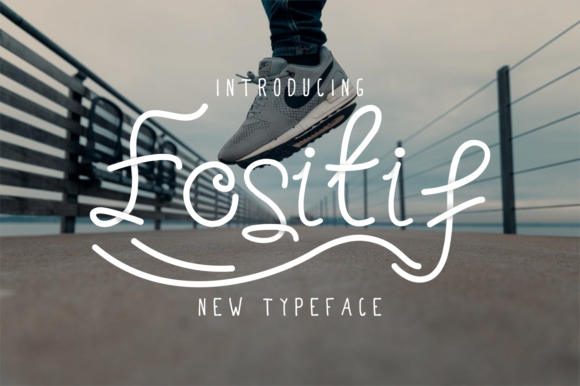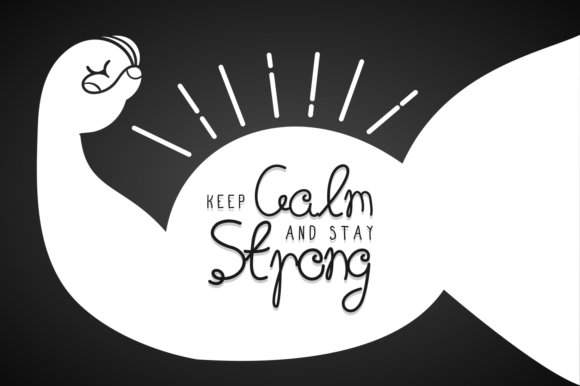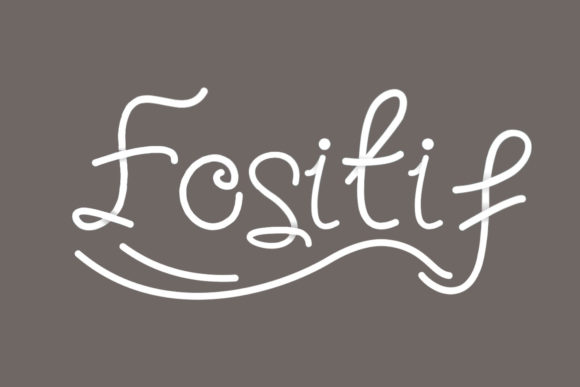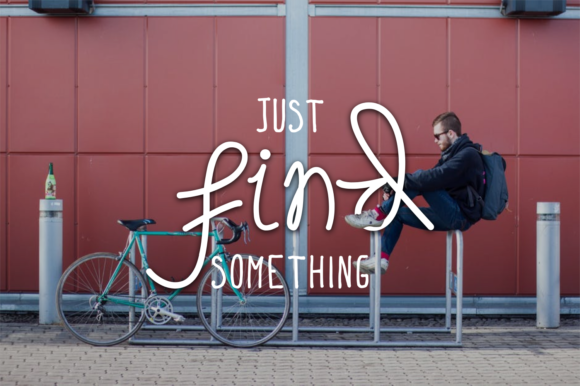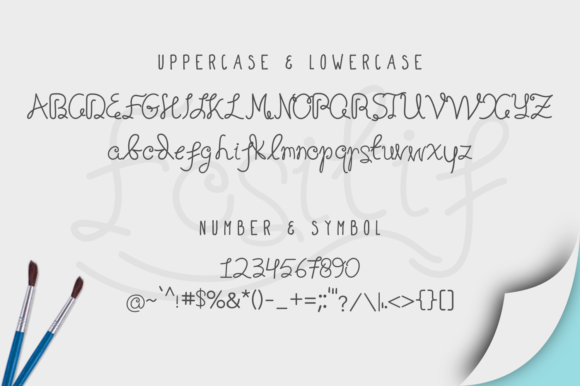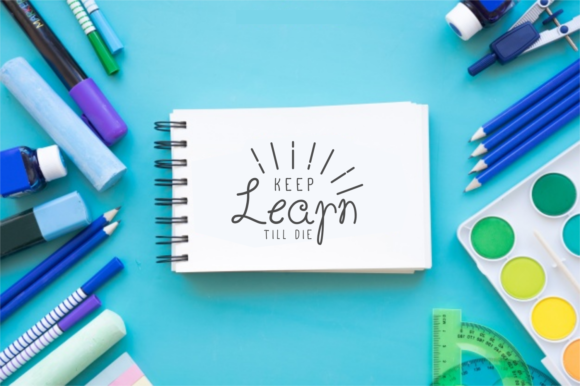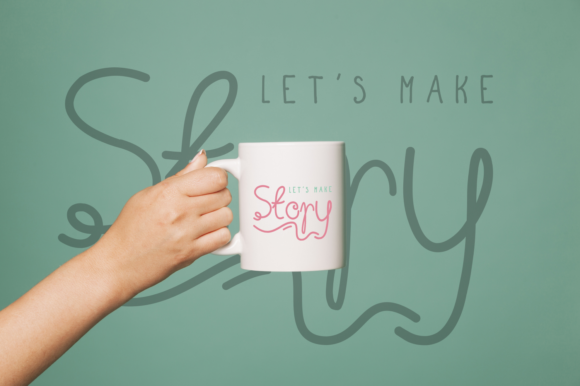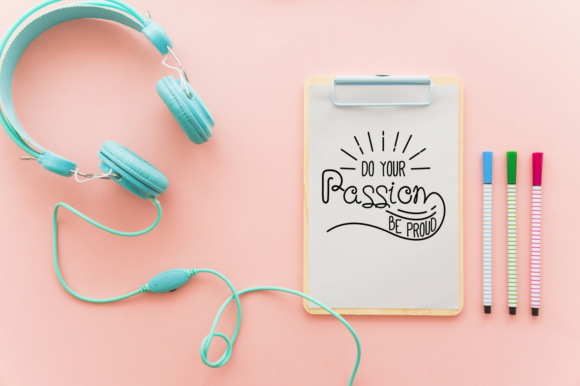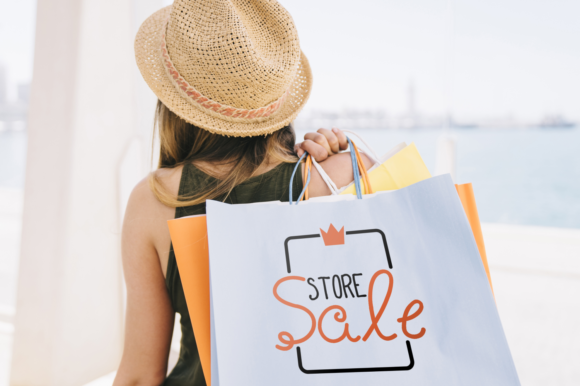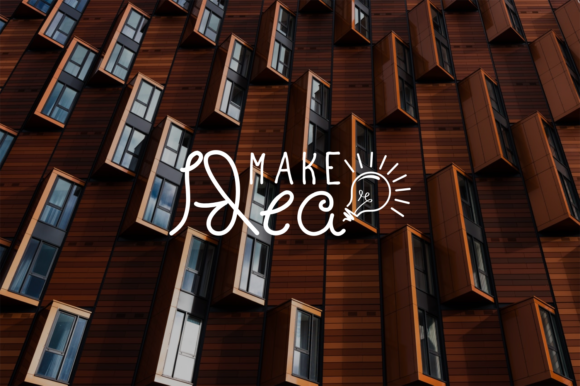
HomeScript FontsFositif Font Script Fonts Fositif Font FacebookXPinterestWhatsApp Fositif Font Poster 2 Fositif Font Poster 3 Fositif Font Poster 4 Fositif Font Poster 5 Fositif Font Poster 6 Fositif Font Poster 7 Fositif Font Poster 8 Fositif Font Poster 9 Fositif Font Poster 10 Fositif Font Poster 11 About Fositif Font Fositif is a playful, yet modern script that will add a unique feel to any design project. DOWNLOAD NOW People also explored Swiss Cheese Font Duchess Font Abreact Font Glegtes Duo Font Leaf Font Blistar Font Yves Yvespainting Font Best Choice Crishock Font 330 0 TagsFositif Font Previous articleCharlie FontNext articleHamiliton Font LEAVE A REPLY Cancel reply Comment: Please enter your comment! Name:* Please enter your name here Email:* You have entered an incorrect email address! Please enter your email address here Website: Save my name, email, and website in this browser for the next time I comment. Personal Use Free Nottingsam Personal Use Free Read more about this font Blessed Font Personal Use Free Read more about this font Aseline Personal Use Free Read more about this font Doodle Font Personal Use Free Read more about this font BLOG 5 Fonts That Will Dominate Design Trends in 2026 5 Fonts for 2026 That Will Dominate Design Trends Typography plays a critical role in visual communication, and as we look ahead to 2026, it’s... Where to Buy American Fonts Online in 2024 Modern Sans-Serif Fonts That Brands Love in 2025 How to Install and Use Fonts on Windows, macOS, and Web Projects